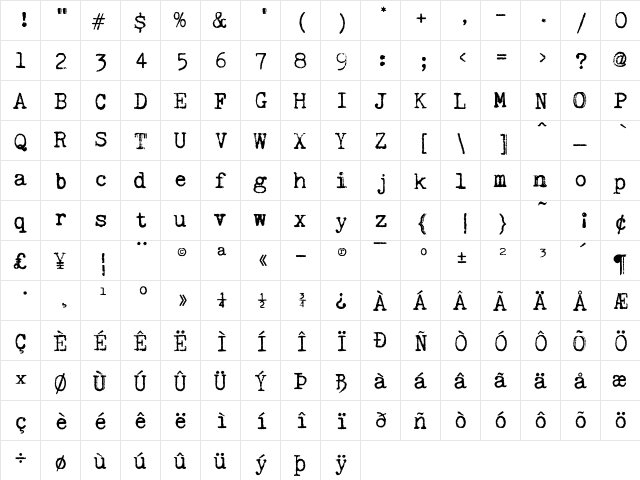
Kingthings Trypewriter 2 Regular
| Designer | Kevin King, Exeter, England |
Design Context for Kingthings Trypewriter 2 Typeface
Kingthings Trypewriter 2 takes a measured approach to typography — its balanced proportions and neutral character make it a reliable workhorse for both digital and print work. The delicate stroke weight brings airiness and refinement to layouts.